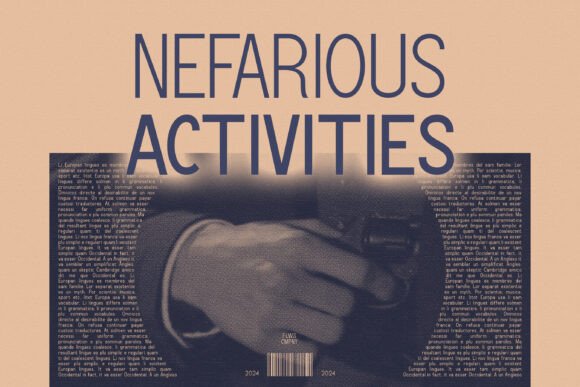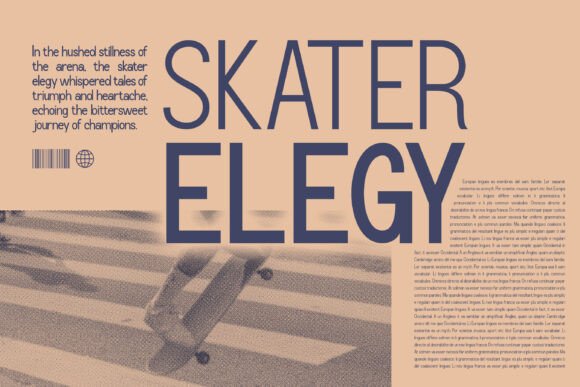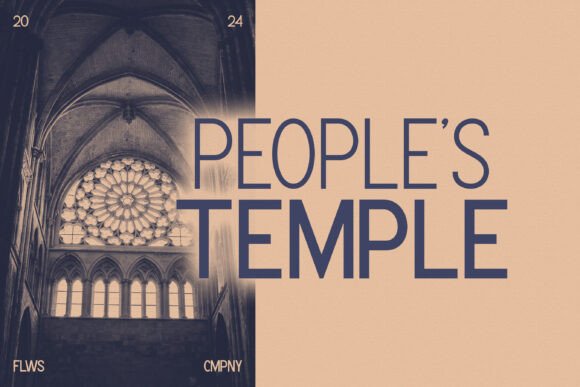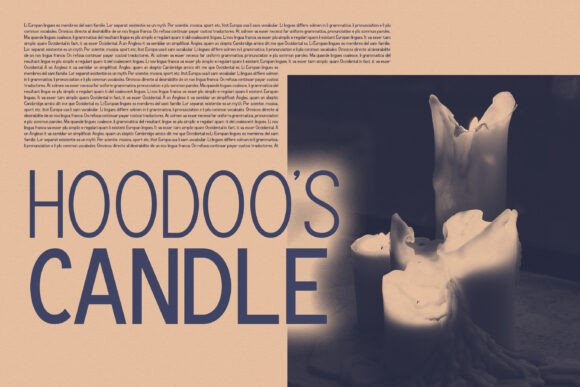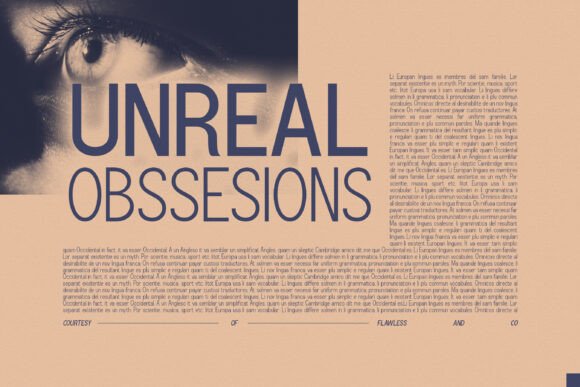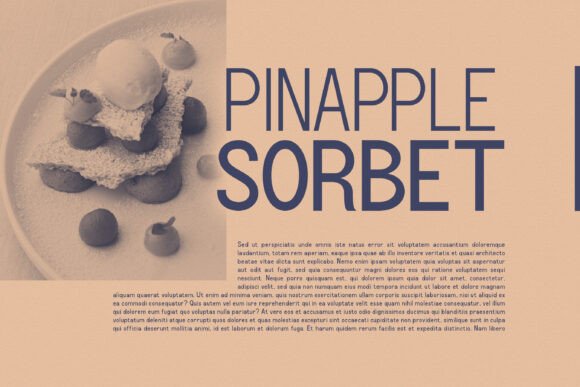
I still remember the frustration of working on a project, hours spent crafting the perfect layout, only to realize that the font I chose was completely off. The client wanted something modern, refined, and sophisticated, but my font selection was falling flat. That’s when I discovered Dentika, a sans-serif font family that instantly elevated my design game.
What is Dentika?
Dentika is a sleek and stylish sans-serif font family that exudes sophistication and style. With its clean lines, geometric shapes, and subtle stroke variations, Dentika is perfect for creating a modern and refined look for your branding, web design, and editorial projects.
The Dentika Family
Dentika consists of various weights ranging from thin to bold styles, including thin, extra light, light, regular, medium, semi-bold, and bold. This versatility makes it an excellent choice for designers, crafters, and creative hobbyists who want to add a touch of elegance to their work.
My Honest Review
- ✨ Clean and geometric design: Dentika’s sleek lines and shapes make it perfect for modern designs.
- ✅ Variety of weights: The range of weights allows for flexibility and creativity in design.
- 💡 Easy to read: Dentika’s clear and legible font makes it ideal for body text and headlines.
While Dentika is an excellent font, there are a few things to keep in mind:
- ⚠️ Limited character set: Dentika might not have all the special characters or glyphs you need for specific projects.
- 🤔 Not ideal for body text: While Dentika is legible, it’s better suited for headlines and titles rather than long blocks of text.
The Designer Inspiration Behind Dentika
Dentika was designed with the goal of creating a modern and refined sans-serif font family that would meet the needs of designers and creative professionals. The designer drew inspiration from classic geometric fonts, combined with a touch of elegance and sophistication.
Q: What is Dentika’s personality?
A: Dentika is a modern, refined, and sophisticated sans-serif font family perfect for designs that require a touch of elegance.
Q: Is Dentika suitable for body text?
A: While Dentika is legible, it’s better suited for headlines and titles rather than long blocks of text.